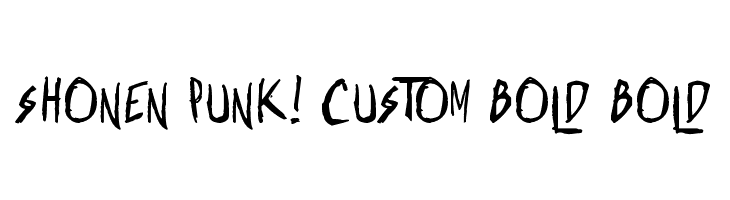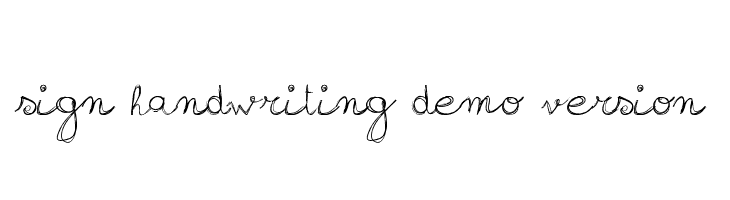
A casual, handwritten font with an authentic, personal touch.
A flowing, cursive script with elegant, connected letters.
A modern, elegant script font with a smooth, flowing style.
A distressed, grunge-style font with tall, narrow characters and a textured appearance.